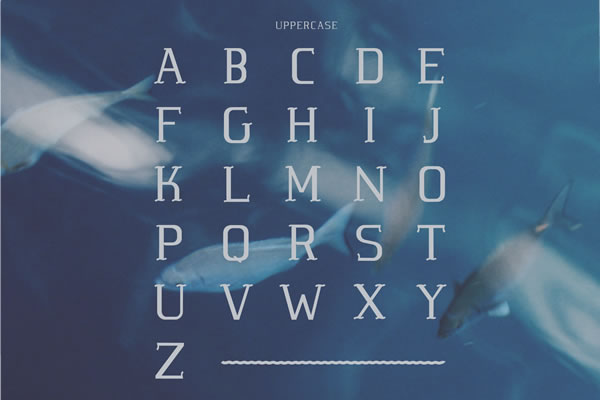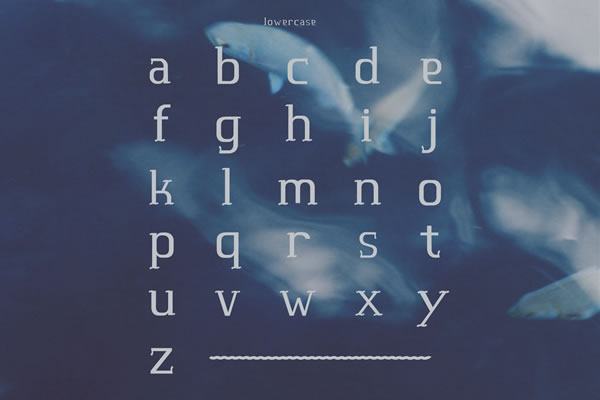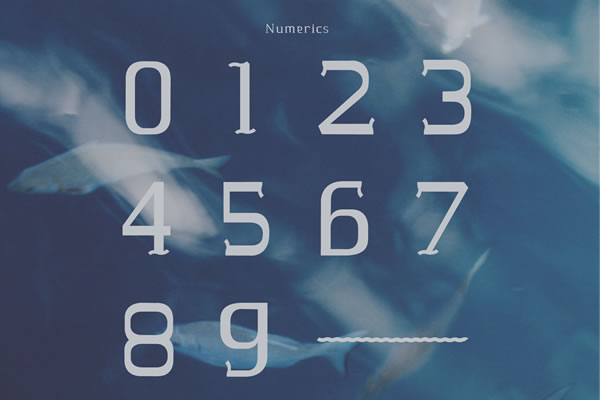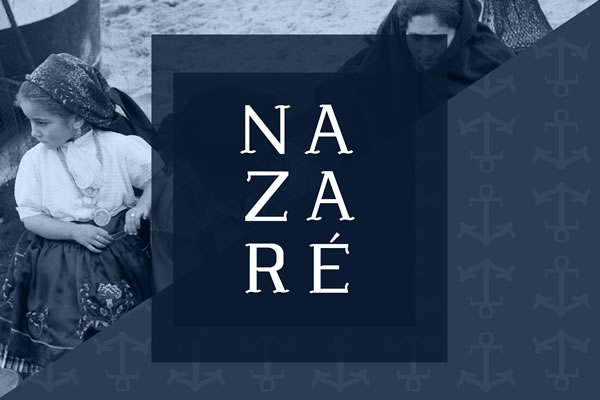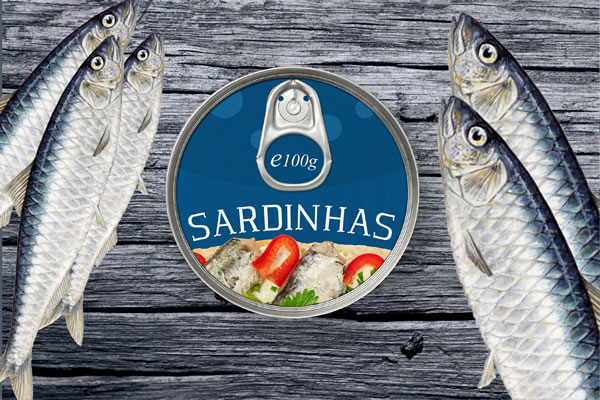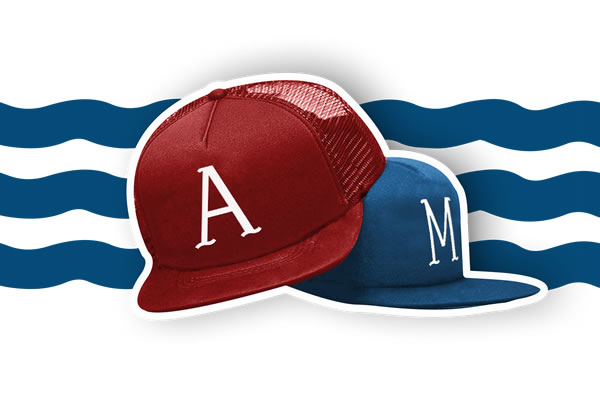
Introduction to Marinha Font Font
Fonts play a crucial role in design, and the Marinha Font font is a typeface that brings both character and versatility to any project. Whether you’re working on a branding project, a website, or a print design, the Marinha Font font offers a unique style that can elevate your work.
Marinha is a nautical themed font.
This geometric decorative typeface was created by Γngela Torres .
Key Features of Marinha Font Font
The Marinha Font font is more than just a typeface β it’s a design tool that helps you communicate your message with style and clarity. Its unique character set and versatile design make it suitable for a wide range of applications, from elegant invitations to bold headlines.
With its carefully crafted letterforms and balanced proportions, the Marinha Font font ensures readability and visual appeal across all mediums.
What makes Marinha Font font special?
The Marinha Font font stands out with its unique design, exceptional readability, and versatility across various design applications.